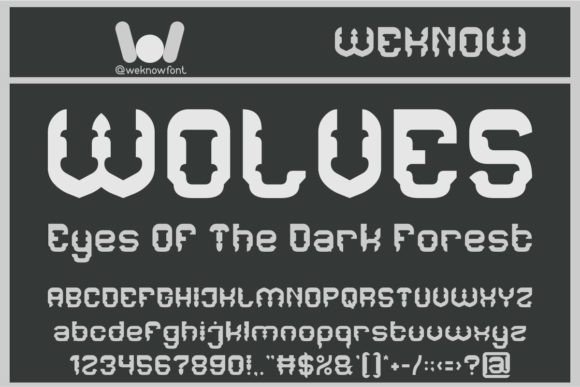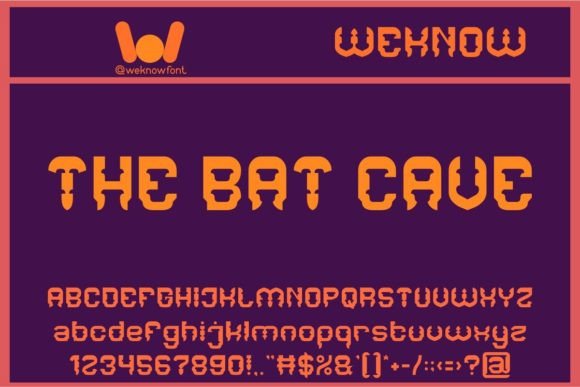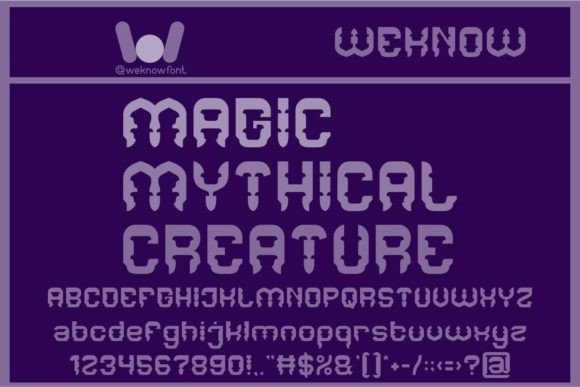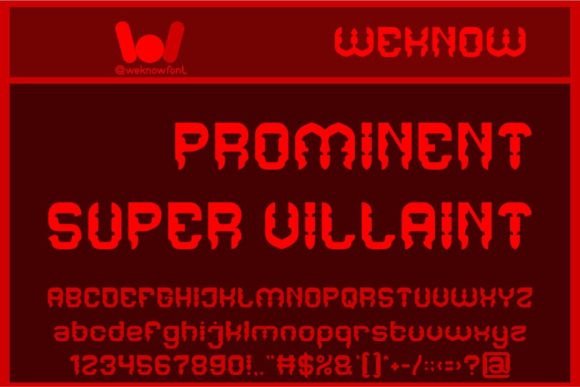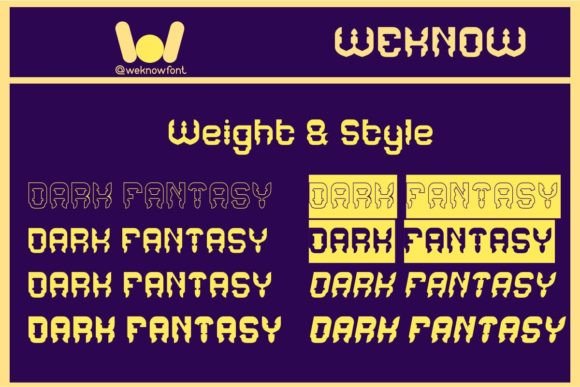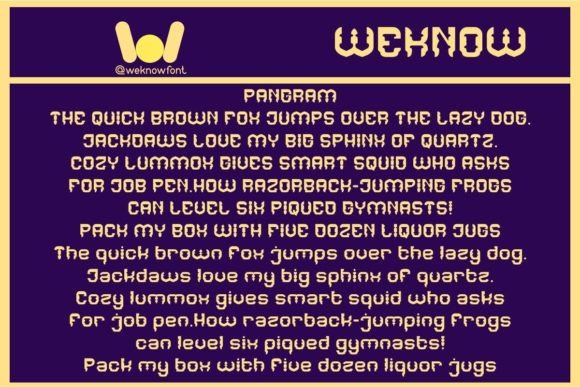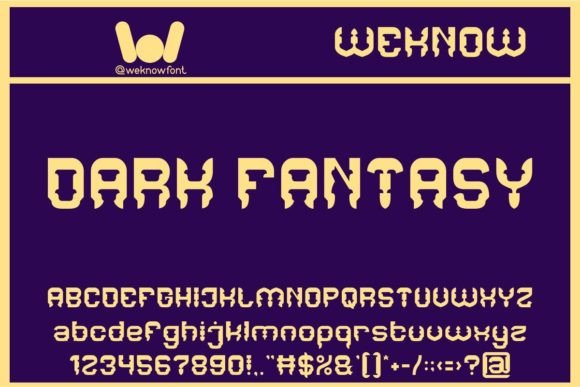
Unleash the Magic with Dark Fantasy Font
Are you ready to add a touch of mystery and allure to your designs? Look no further than the “Dark Fantasy” font, a contemporary Gothic-inspired display font that’s perfect for creating striking logos, captivating headlines, and distinctive corporate and brand identities. With its bold and eye-catching style, this font is sure to make a statement and leave a lasting impression.
The Power of Dark Fantasy Font
Dark Fantasy is more than just a font – it’s a design experience. Its unique blend of Gothic and modern elements creates a captivating aesthetic that’s perfect for a wide range of creative projects. From apparel designs to posters, music and movie titles to gaming projects, this font seamlessly integrates with your vision to bring your ideas to life.
One of the best things about Dark Fantasy is its versatility. This font can be used in a variety of design contexts, including:
- Logos and branding: Create a bold and memorable logo that sets your brand apart from the competition.
- Apparel designs: Add a touch of edginess to your t-shirt, hoodie, or hat designs.
- Posters and flyers: Grab attention with eye-catching headlines and titles.
- Music and movie titles: Add a touch of drama and mystery to your music and movie project titles.
- Gaming projects: Create standout titles and in-game text that immerses players in your game world.
Elevate Your Digital Presence
In today’s digital age, having a strong online presence is crucial. Dark Fantasy font can help you create a virtual presence that’s both memorable and engaging. Use it to:
- YouTube channels: Add a touch of personality to your video titles and descriptions.
- Instagram posts: Create eye-catching captions and quotes that grab attention.
- Website design: Use Dark Fantasy to create a bold and memorable website header or title.
Why Choose Dark Fantasy Font?
So why choose Dark Fantasy font for your design projects? Here are just a few reasons:
- Unique style: Dark Fantasy offers a unique blend of Gothic and modern elements that sets it apart from other fonts.
- Attention-grabbing: This font is designed to grab attention and make a statement.
- Versatile: Dark Fantasy can be used in a wide range of design contexts, from logos and branding to posters and digital media.
- Ease of use: This font is easy to read and works well in both large and small sizes.
Tips for Using Dark Fantasy Font
To get the most out of Dark Fantasy font, here are a few tips:
- Use it sparingly: While Dark Fantasy is a bold and eye-catching font, it can be overwhelming if used too much. Use it sparingly to create emphasis and add visual interest.
- Pair it with a neutral font: Pair Dark Fantasy with a neutral font to create contrast and add visual interest.
- Experiment with colors: Dark Fantasy works well with a range of colors, from bold and bright to muted and pastel.
Dark Fantasy font is a powerful design tool that’s perfect for creating striking logos, captivating headlines, and distinctive corporate and brand identities. With its unique blend of Gothic and modern elements, this font is sure to make a statement and leave a lasting impression. Whether you’re a designer, crafters, or digital media enthusiast, Dark Fantasy font is a must-have in your design arsenal. So why wait? Unleash the magic of Dark Fantasy font and take your designs to the next level.